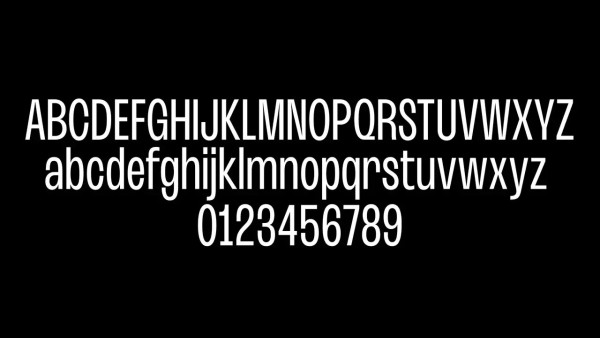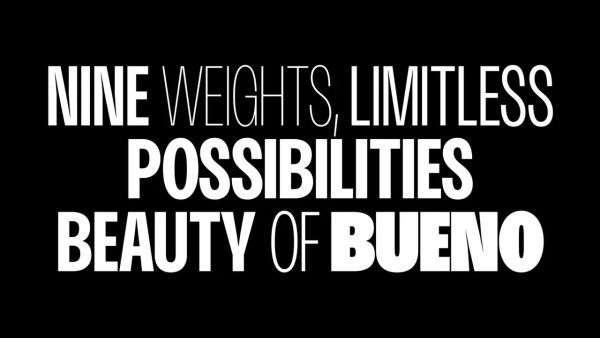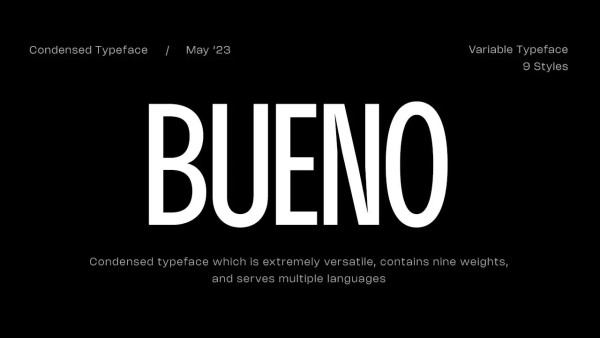
Bueno Font
Bueno Font, a condensed display Sans typeface that demands attention and adds a unique flair to any design. Bueno has its own magnetic personality, making it perfect for branding, packaging, editorial, and much more.